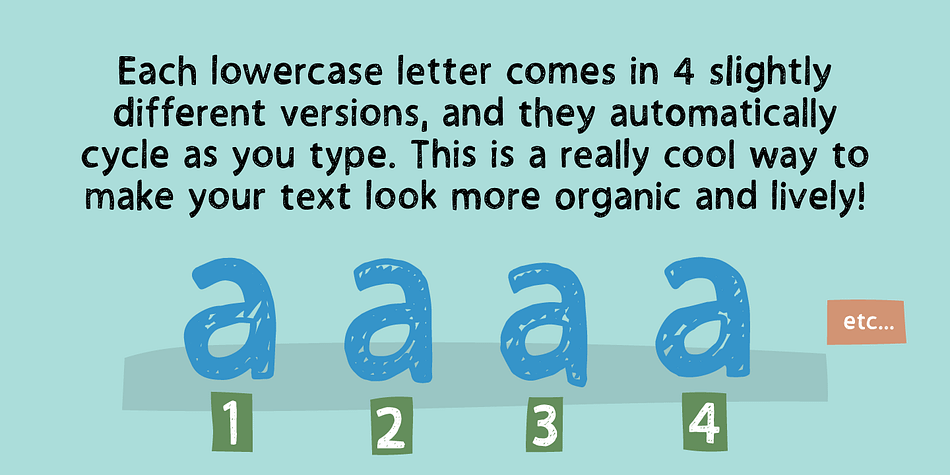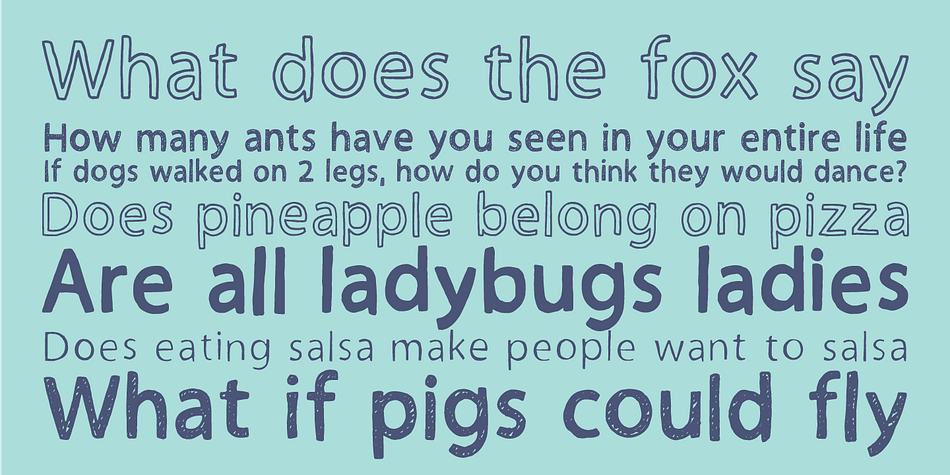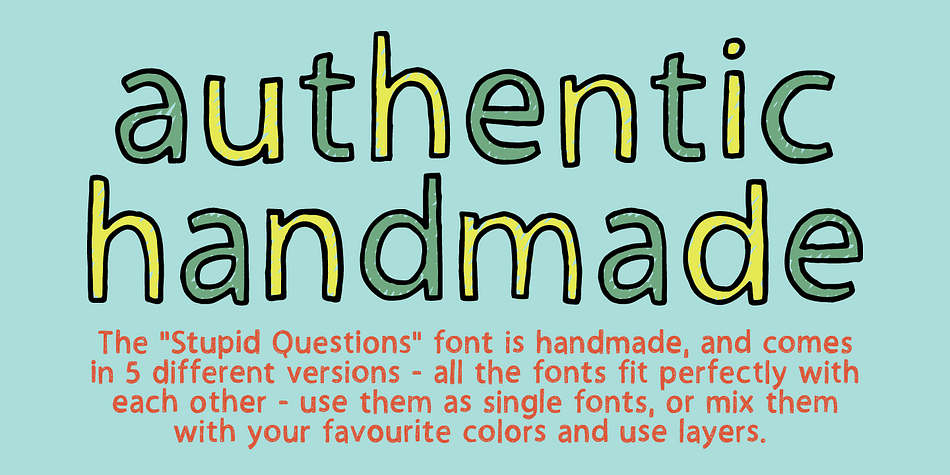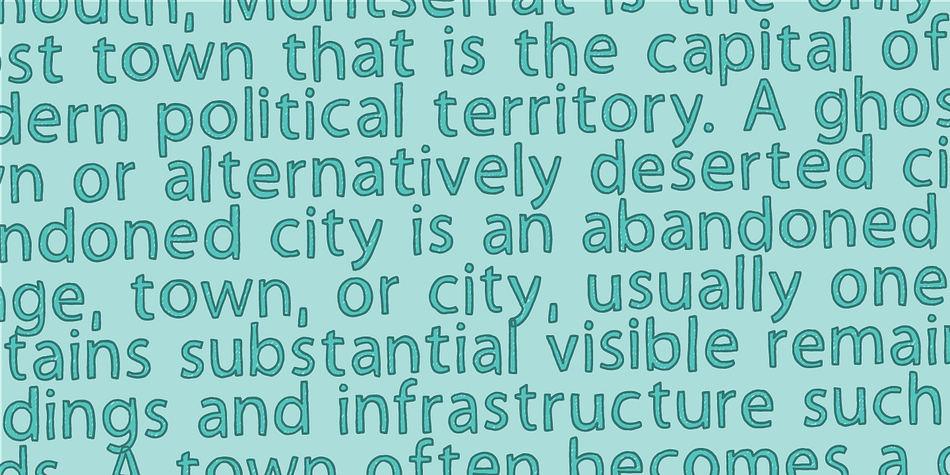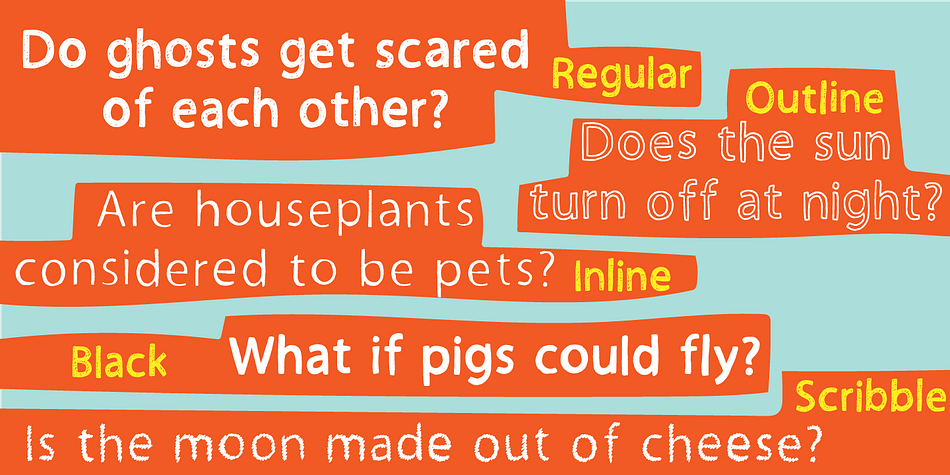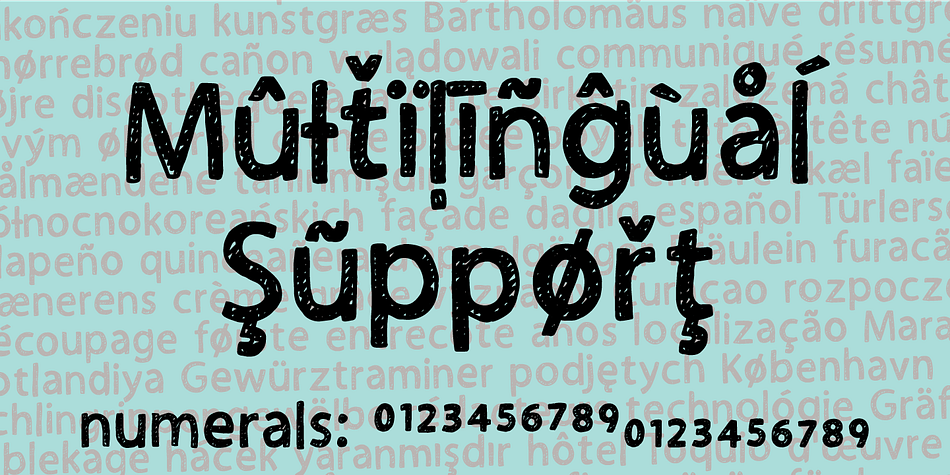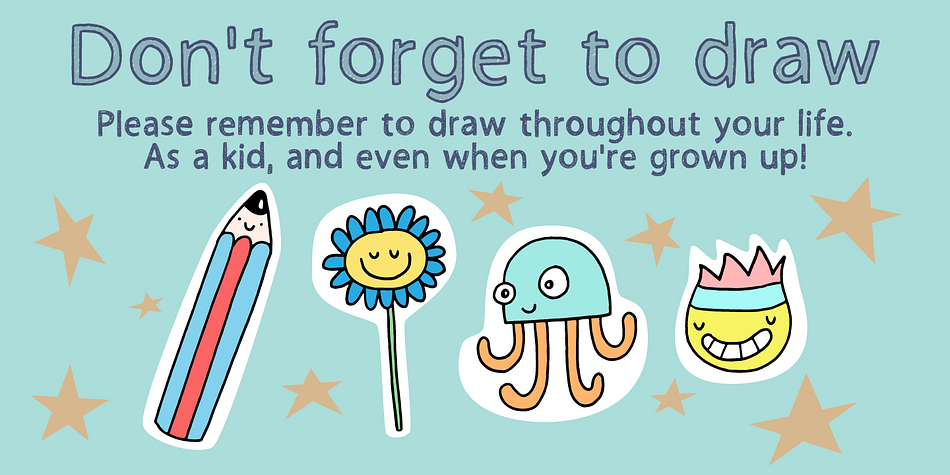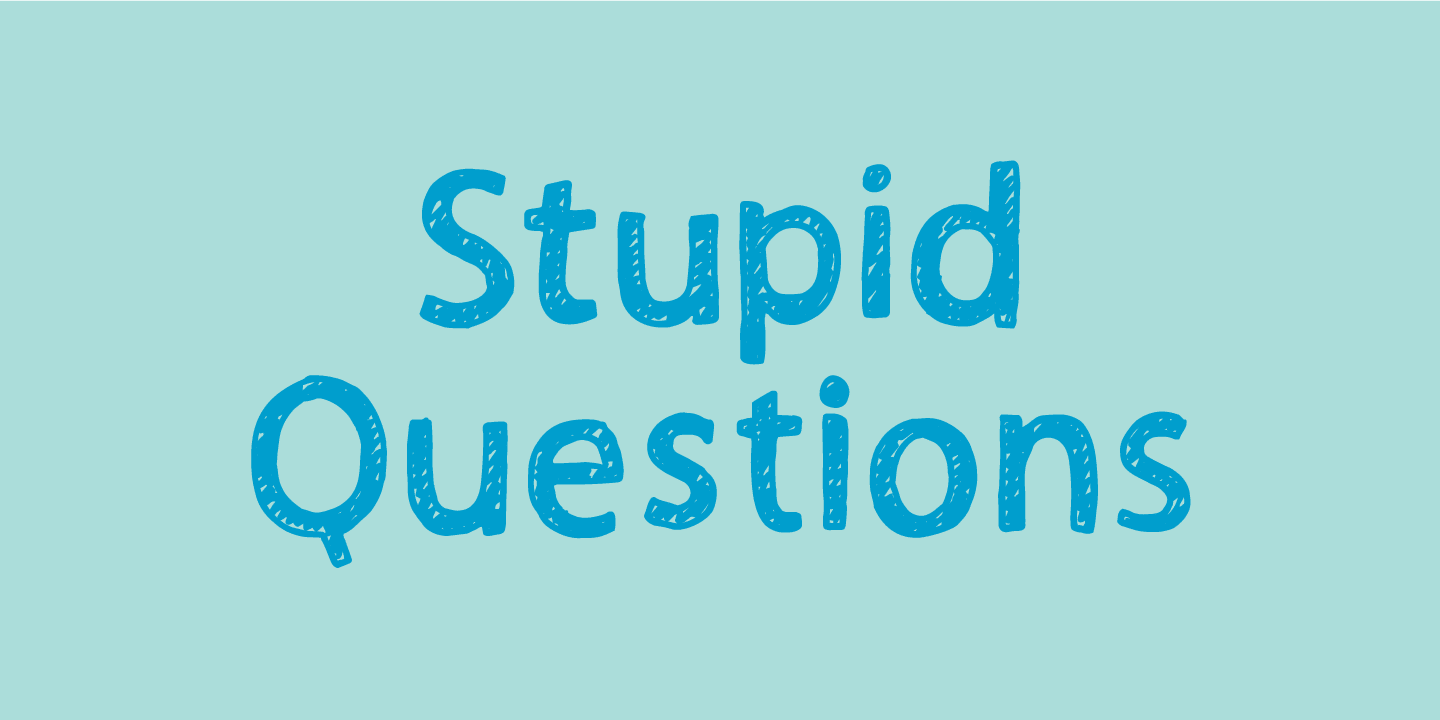
Designed by Jakob Fischer, Stupid Questions is a hand display and hand drawn font family. This typeface has five styles and was published by Bogstav.
First of all: there is no such thing as a stupid question! But now there is a font called Stupid Questions! :)
A classic handmade sans font - super legible and somewhat clean. Use your favourite of the 5 different versions, mix them in layers with your favourite colours.
I’ve added 4 different versions of each lowercase letter, and they automatically cycle as you type - a great way to make your text look more natural and organic!